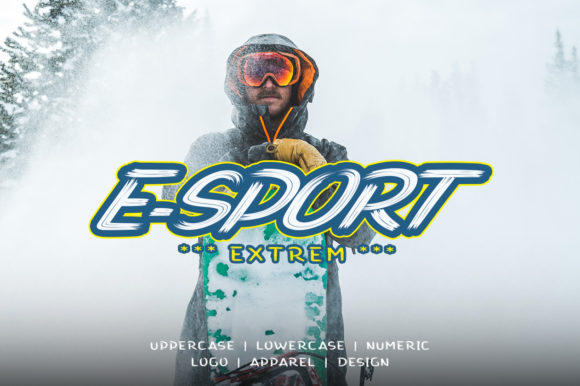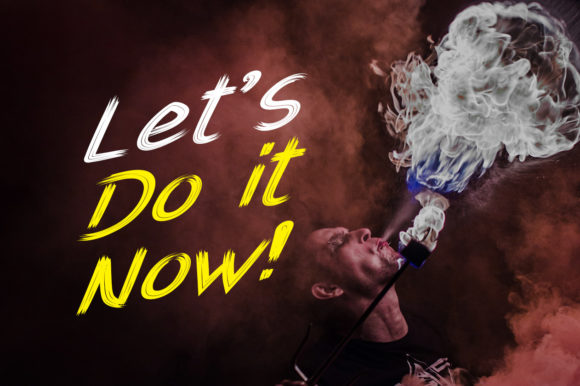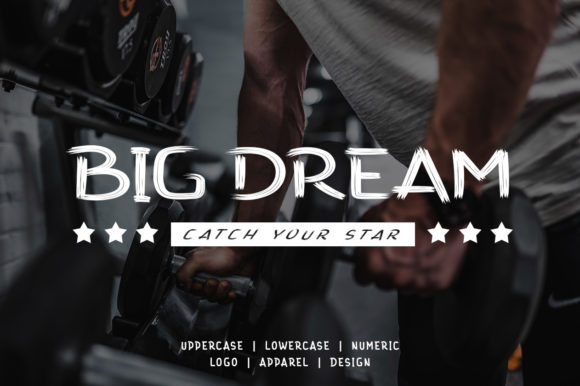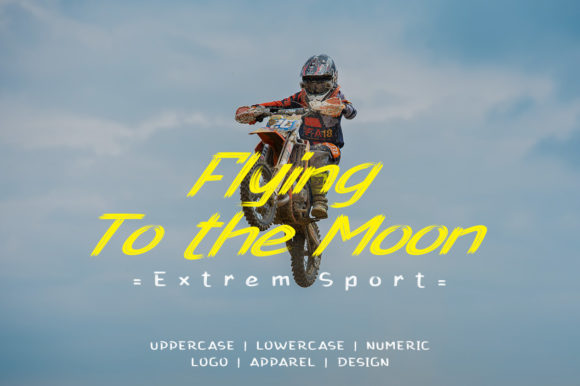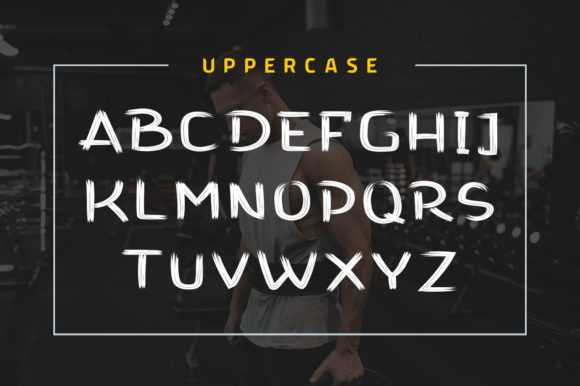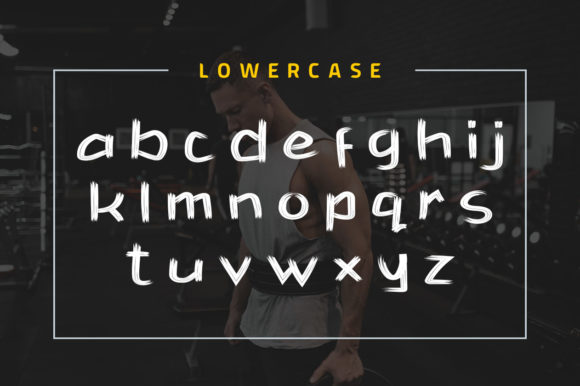
Discover the Urban Edge with Antonio Zull Font
In the world of typography, fonts play a crucial role in elevating designs from ordinary to extraordinary. For designers and crafters looking for that perfect blend of modernity and ruggedness, the Antonio Zull Font stands out as a remarkable choice. This brushed display font, with its unmistakable urban style, has the power to transform your designs, adding a touch of sophistication and edge.
What Makes Antonio Zull Font Stand Out?
Antonio Zull Font is not just another addition to the vast sea of typefaces. Its unique characteristics make it a standout for several reasons:
- Urban Aesthetic: The font boasts an urban style that resonates with contemporary design trends. Its rugged, brushed texture gives it an authentic, street-wise appeal.
- Versatility: Whether you’re working on a logo, a poster, a website header, or any other design project, Antonio Zull Font adapts seamlessly, ensuring your work looks cohesive and professional.
- Legibility: Despite its stylized appearance, the font maintains high legibility, making it suitable for a wide range of applications, from titles and headings to short paragraphs.
How to Use Antonio Zull Font Effectively
To truly leverage the potential of Antonio Zull Font, consider the following tips:
- Pair with Simplicity: To let the font be the focal point, pair it with simpler fonts for body text or supplementary elements. This contrast will make your design more dynamic and visually appealing.
- Play with Colors: The urban vibe of Antonio Zull Font can be further emphasized with bold, contrasting colors. Experiment with color palettes that reflect the mood and theme of your design.
- Utilize Texture: Take advantage of the font’s textured, brushed appearance. Use it to add depth to your designs, especially in headlines or key messaging.
Who Can Benefit from Antonio Zull Font?
The versatility of Antonio Zull Font makes it a valuable asset for a wide range of professionals:
- Graphic Designers: Looking for a font that adds an urban twist to their projects, from branding to advertising materials.
- Web Designers: Seeking to create visually engaging website headers or interactive elements that capture users’ attention.
- Wanting to add a modern, edgy touch to their handmade products, packaging, or promotional materials.
Antonio Zull Font is more than just a typeface; it’s a design statement. Its urban style, combined with its legibility and versatility, makes it an excellent choice for designers and crafters aiming to elevate their work. By incorporating Antonio Zull Font into your projects, you’re not just choosing a font; you’re embracing a design language that speaks of modernity, ruggedness, and sophistication. So, take your designs to the next level with Antonio Zull Font and discover the impact a powerful typeface can have on your creative projects.